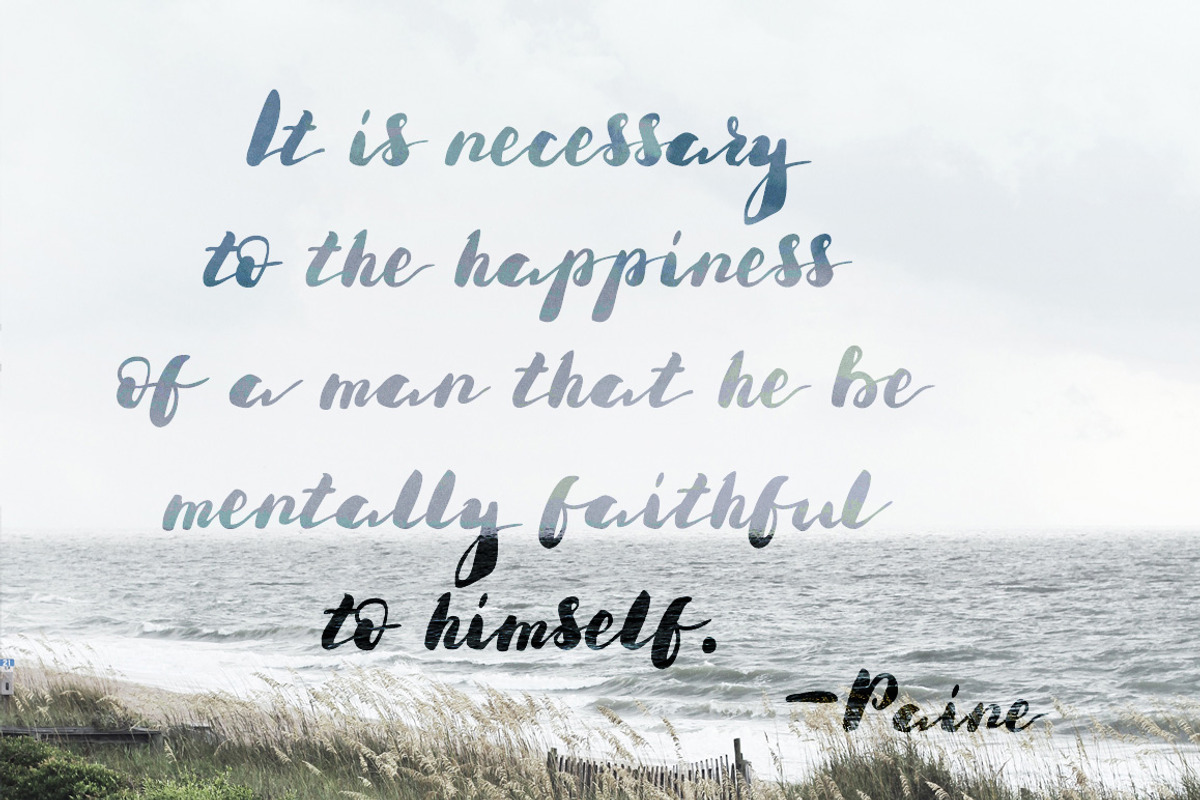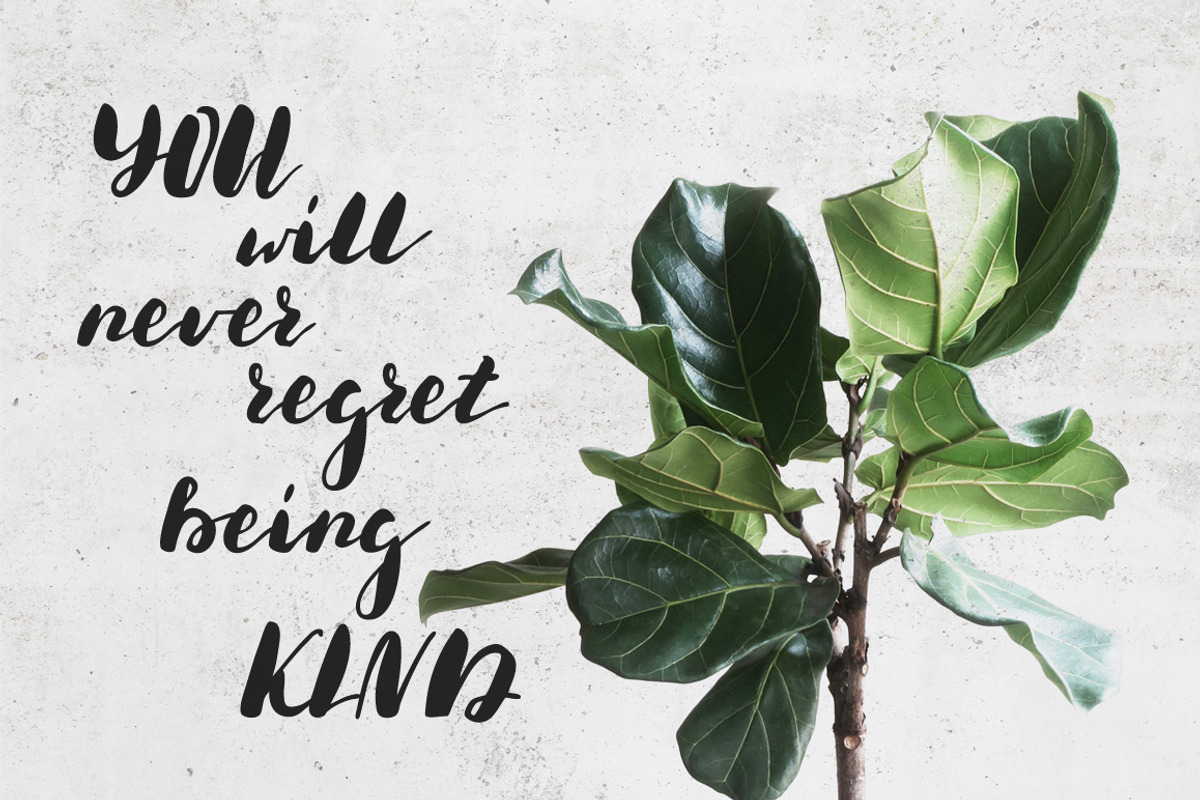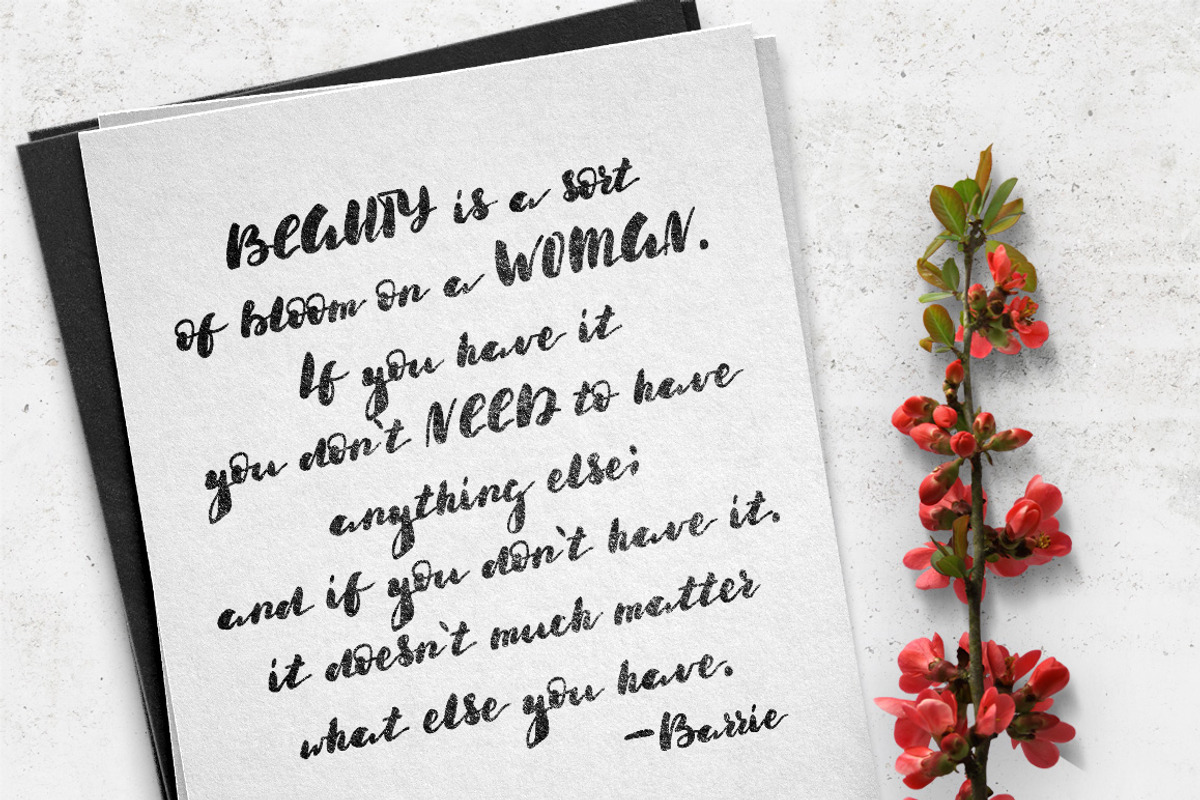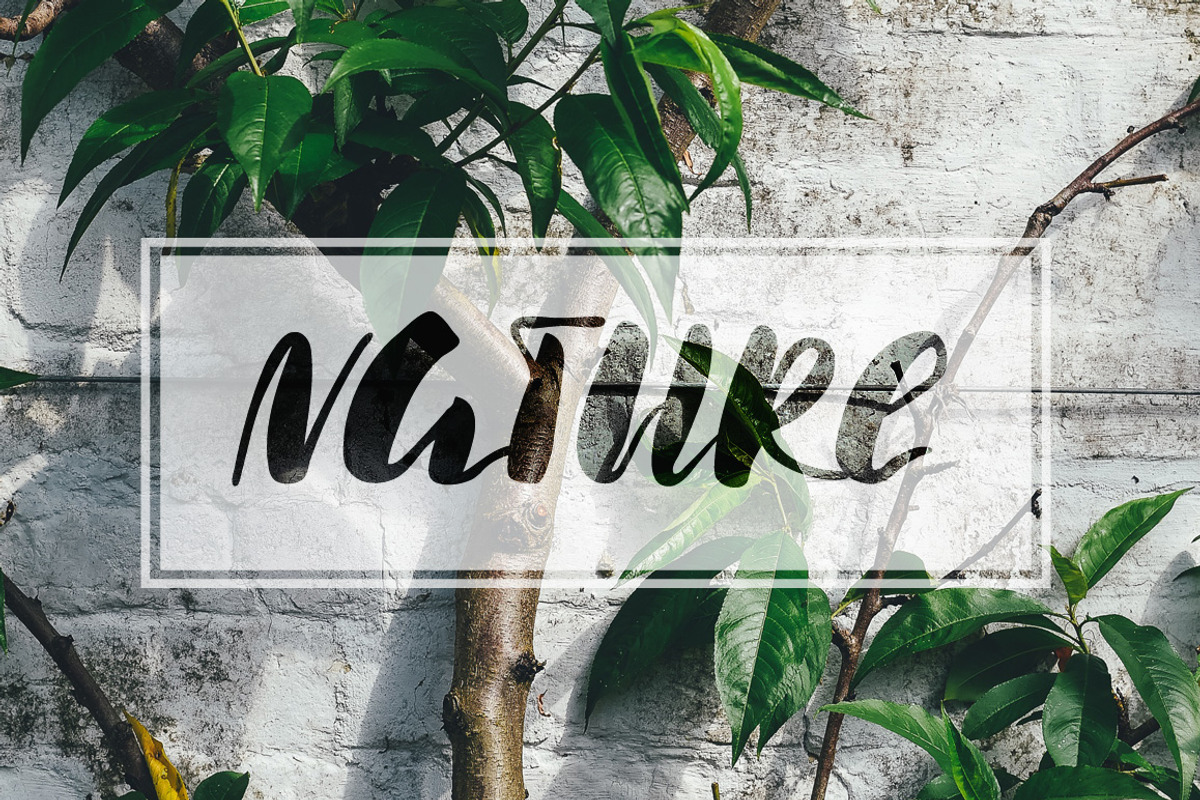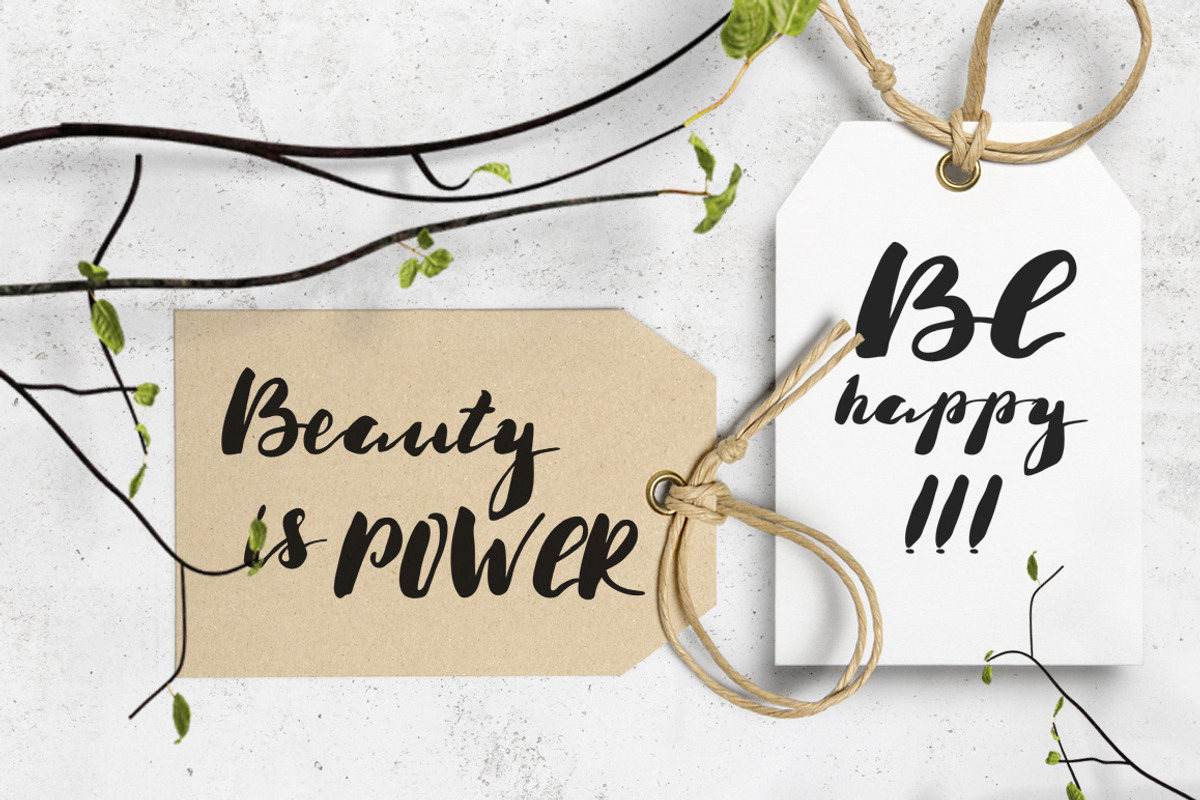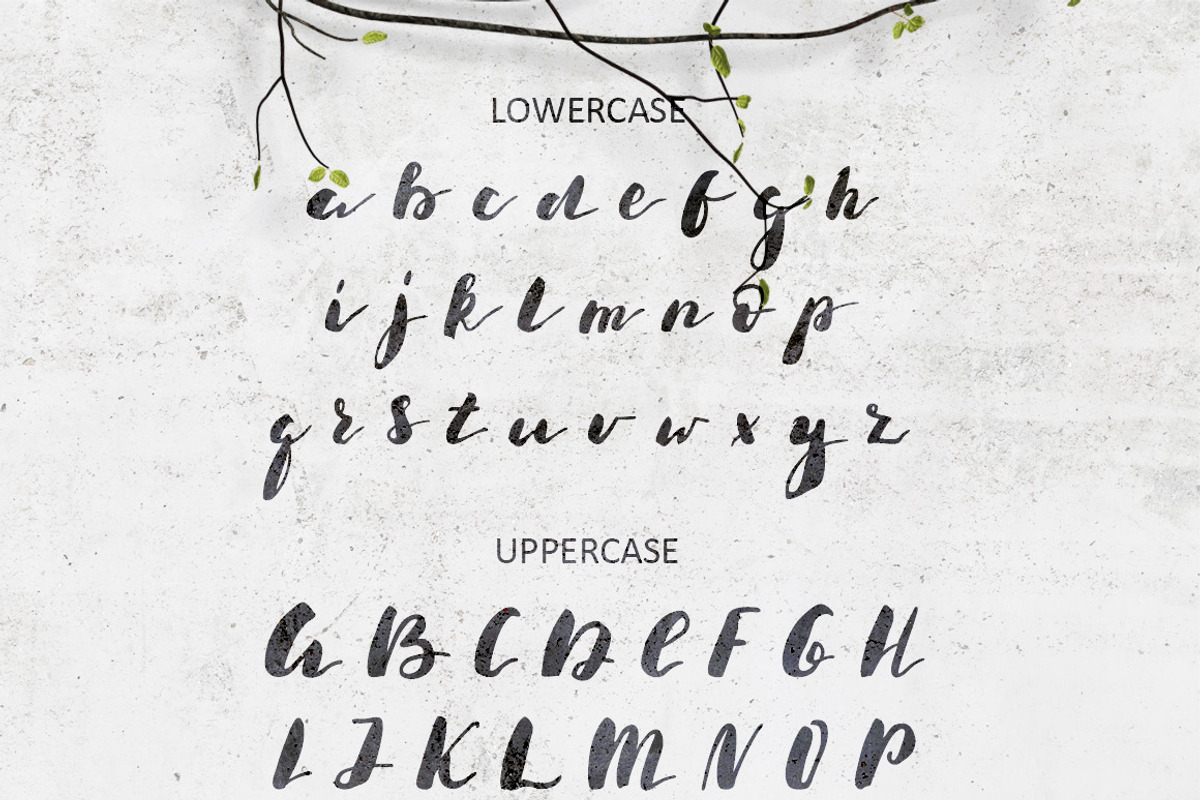
Luuna. Emotional Brush Font
Luuna. Emotional Brush Font by Wewhitelist is a font selected for branding, posters, packaging, typography.
Why Luuna. Emotional Brush Font is worth a look
Luuna. Emotional Brush Font by Wewhitelist fits naturally into Branding, posters, packaging, typography.